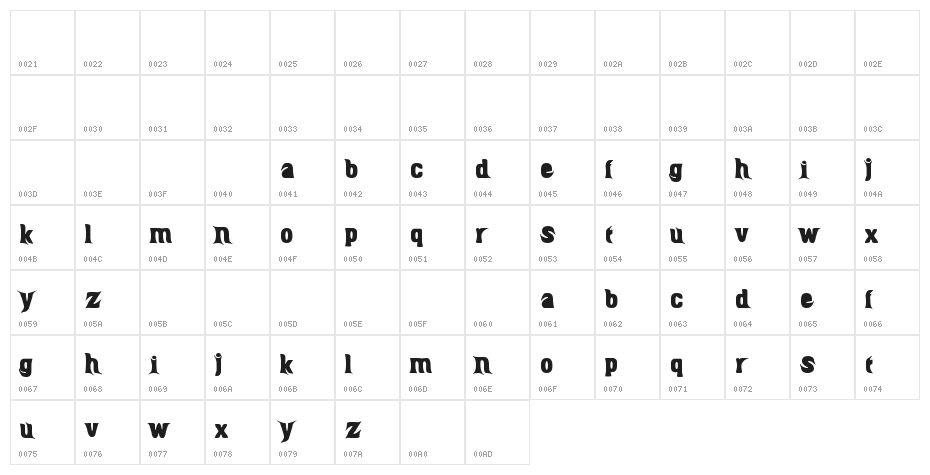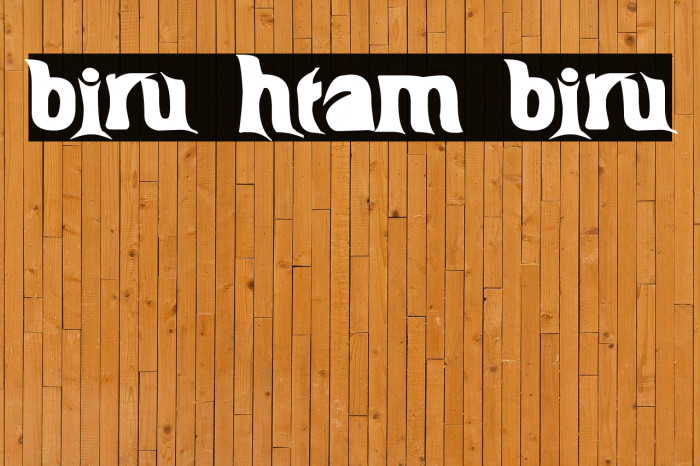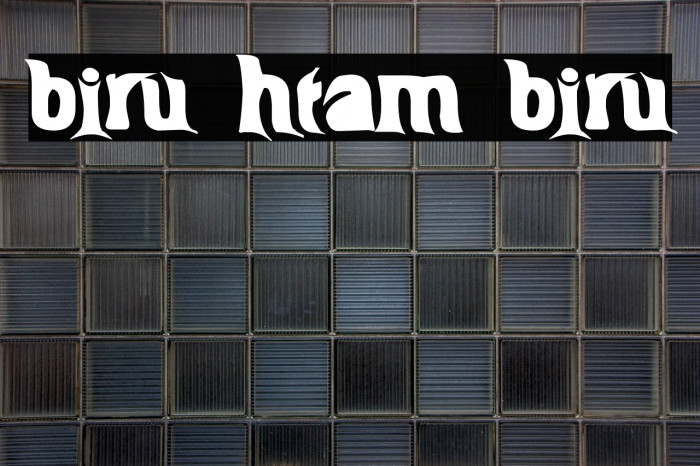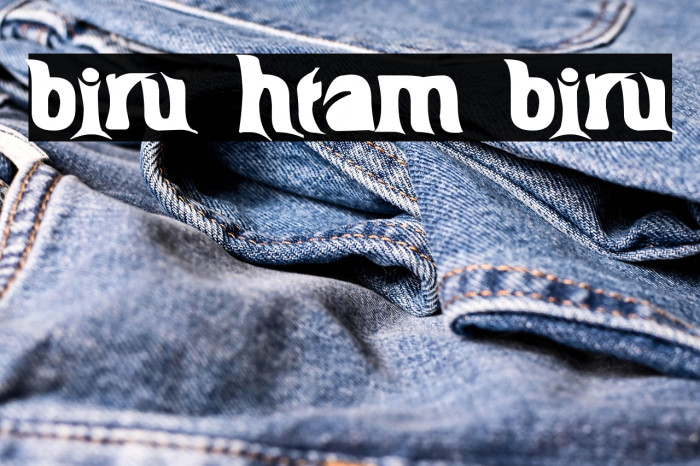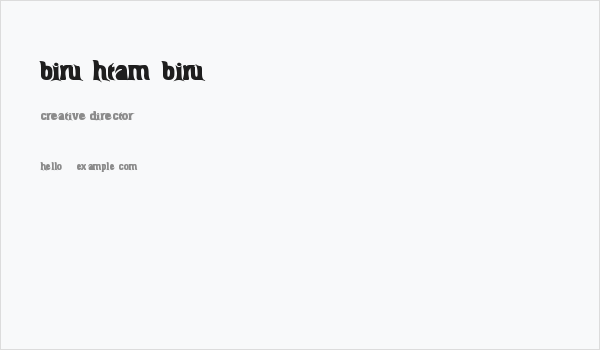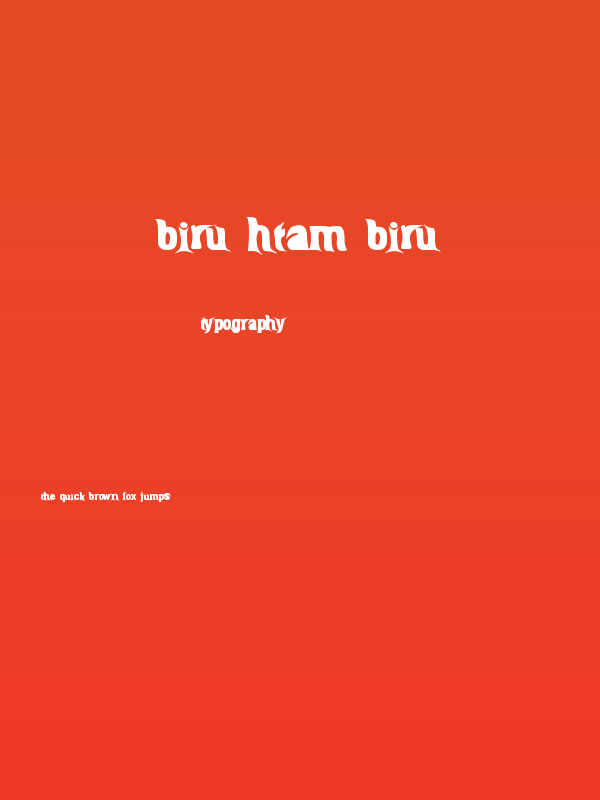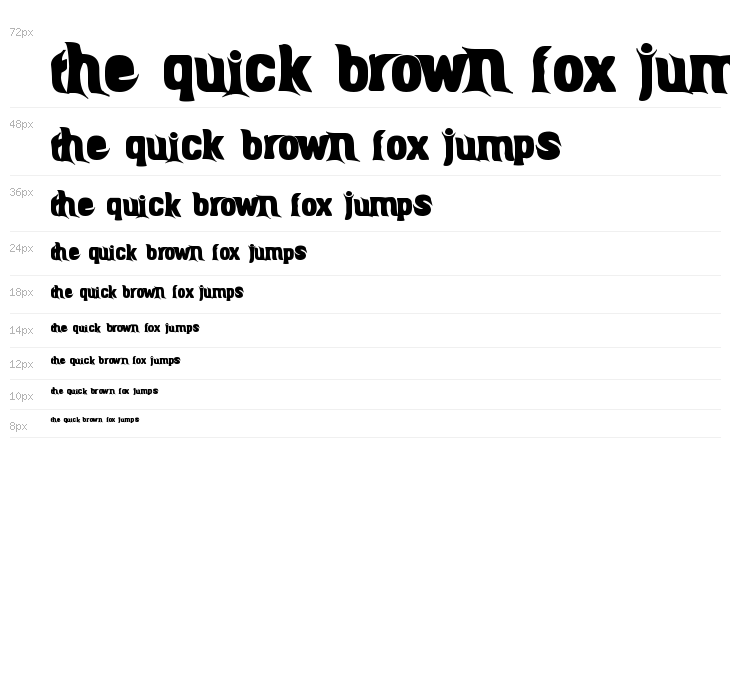
BIRU-HTAM-BIRU Font
BIRU-HTAM-BIRU Description
This font features a bold and dynamic style with a strong presence. The characters are designed with thick strokes and unique, sharp edges that give it a distinctive look. The uppercase and lowercase letters maintain a consistent weight, creating a cohesive appearance. The font's design incorporates a sense of movement and energy, making it stand out in any context. Its boldness and unique character shapes make it suitable for attention-grabbing headlines and creative projects. The font's style is reminiscent of vintage poster typography, yet it maintains a modern flair.
| Overall Style | Vintage, Modern |
| Proposed Projects | Ideal for posters, logos, branding, and any project requiring a striking visual impact. |